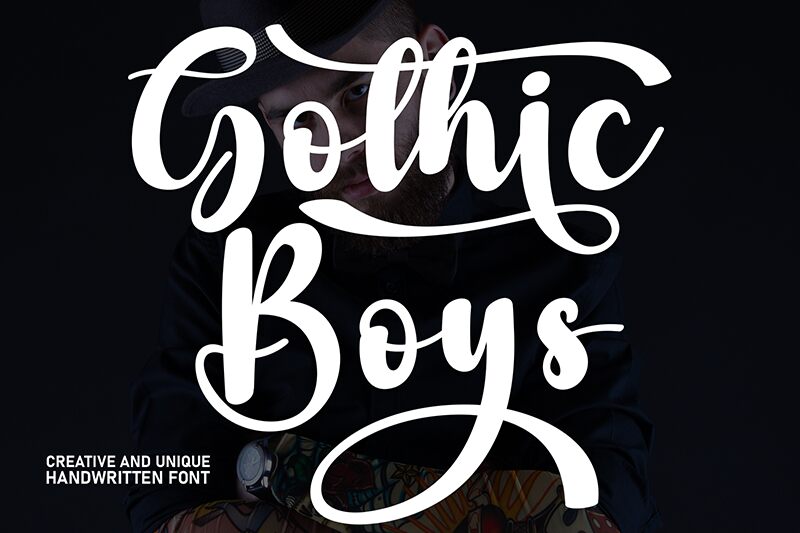
Gothic Boys
Gothic Boys font designed by Andi Moz is a brush font with elegant and expressive characteristics. It draws inspiration from classic calligraphy and Gothic influences, offering a sophisticated charm with artistic flair. This retro-inspired typeface carries a unique freeform style that enhances its overall visual impact.
It is an excellent resource for branding fashion labels, artistic projects, vintage-themed event designs, posters, book covers, logos, packaging designs, decorative invitations, social media graphics, apparel design and more. This free brush display font offers great versatility across a wide range of design needs.